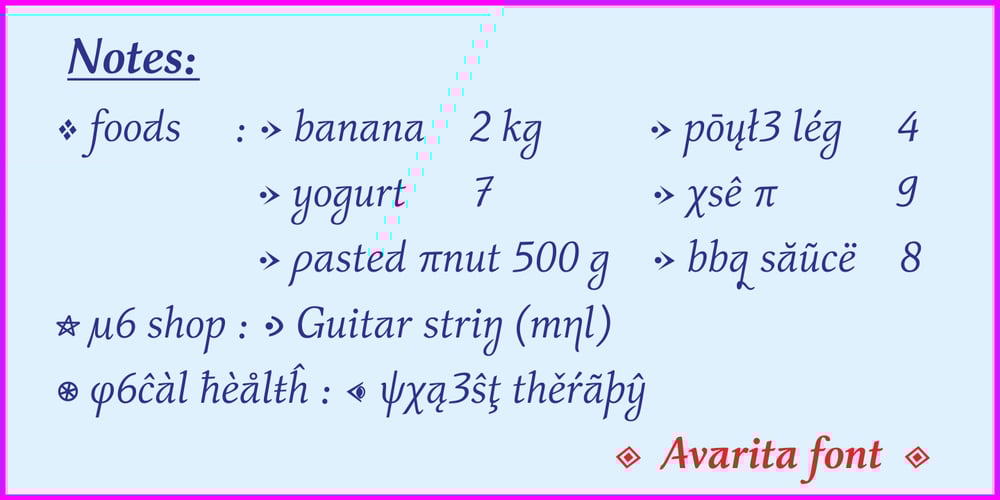
Avarita Font Family was designed by Sudarmaji and published by Asritype. Avarita contains 2 styles and family package options. Avarita is an italic font variant. The font design is a fusion between serif and handwriting. Avarita match to many kind of typing, such as comical conversation text, caption, handwritten typing, and othes.